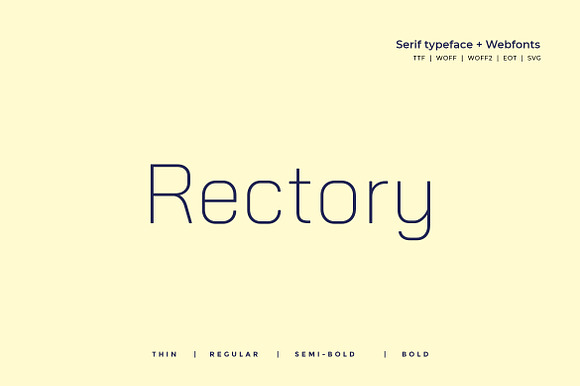
Rectory - Modern Typeface + WebFont
Rectory Modern Typeface
Rectory is a modern and Minimal Sans Serif typeface, Rectory Sans can keep the minimalism at its level best and is a Perfect choice for Creative and Classic Typography Designs with unique typography with 4 font weights. The pack includes OTF, TTF and Web Fonts (all EOT, SVG, TTF, WOFF included).
Weights : THIN | REGULAR | SEMI BOLD | BOLD
Font Designed and Crafted by Webhance Studio.
Rectory - Modern Typeface + WebFont by Webhance Studio fits naturally into Branding, posters, packaging, typography.